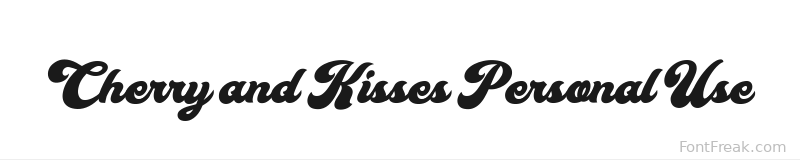
Cherry and Kisses Personal Use
Cherry and Kisses Personal Use is a captivating display font designed by Billy Argel Fonts, and it falls into the decorative category. This font is characterized by its playful, cursive style that embodies a sense of whimsy and charm. The strokes are bold with a moderate contrast, featuring rounded edges that lend a friendly and inviting appearance. The spacing is well-balanced, allowing for easy readability while maintaining a stylish flair. The decorative elements, such as the exaggerated swashes and loops, give it a unique personality that sets it apart from standard typefaces.
This font is particularly well-suited for a variety of creative projects. It shines in applications like wedding invitations, where its romantic and whimsical nature can enhance the overall aesthetic. Additionally, it works beautifully for greeting cards, providing a personal touch for special occasions. Restaurant menus can also benefit from its playful vibe, making dishes appear more enticing. Furthermore, content creators will find it effective for social media graphics, where eye-catching text is essential for engagement.
The target audience for Cherry and Kisses Personal Use includes graphic designers looking to add a fun element to their projects, small business owners seeking to craft a memorable brand identity, and content creators who wish to make their visuals pop.
What makes the Cherry and Kisses Personal Use font stand out is its delightful balance of elegance and playfulness. It invites viewers in and creates an emotional connection, making it perfect for any project that aims to leave a lasting impression. With its unique charm and versatility, this font is a fantastic choice for anyone looking to elevate their designs. Don't miss the chance to explore this gem with a Cherry and Kisses Personal Use font free download.